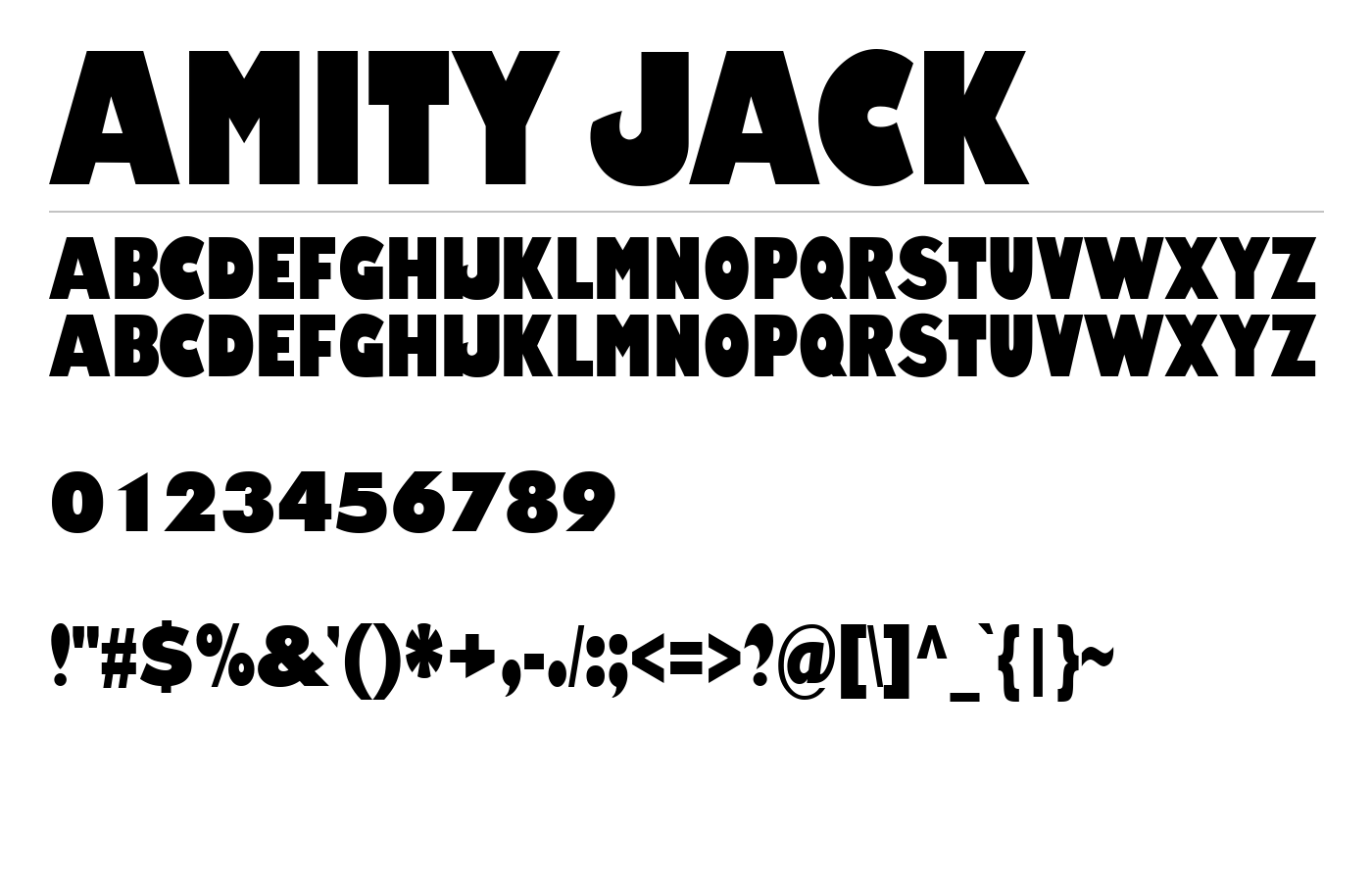
Amity Jack is a bold, condensed sans serif font with a strong, geometric presence and playful diagonals that give it a lively, modern feel. Its chunky letterforms and high impact style make it ideal for eye-catching headlines, logos, and branding that demands attention and personality. This font works especially well in creative and youthful contexts, bringing energy and confidence to any design.
Amity Jack Font